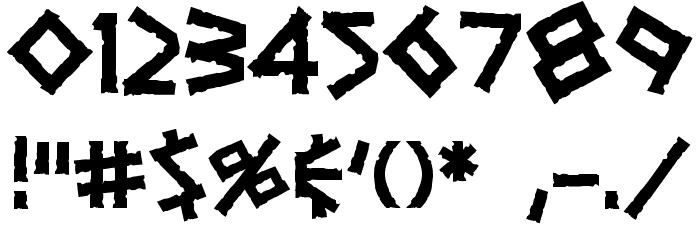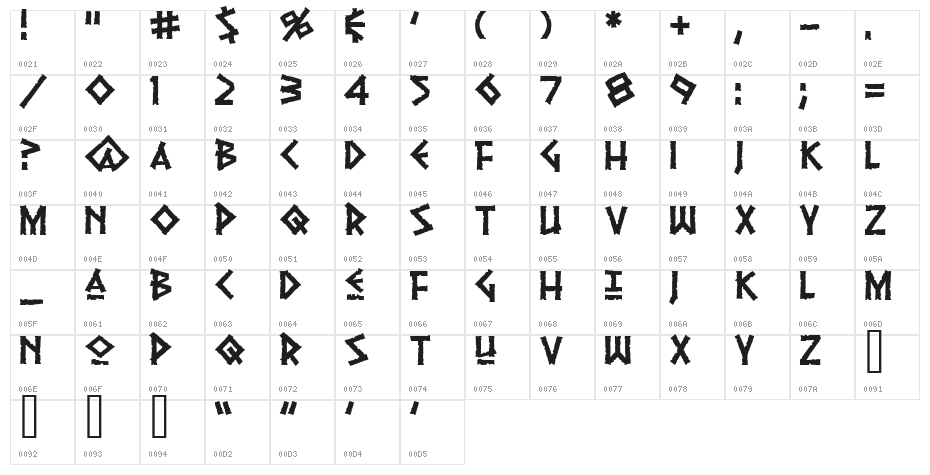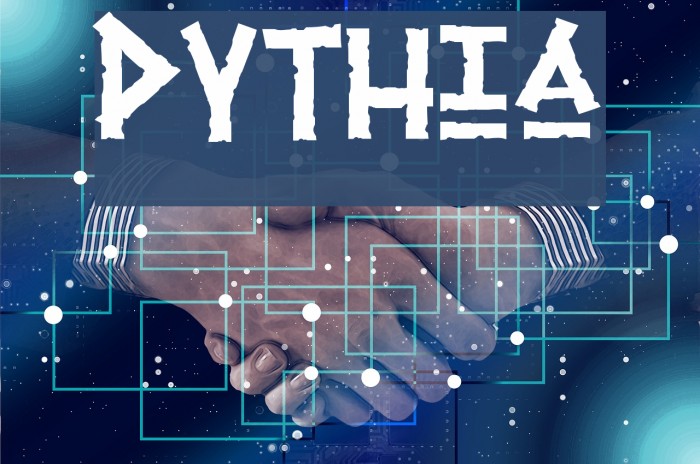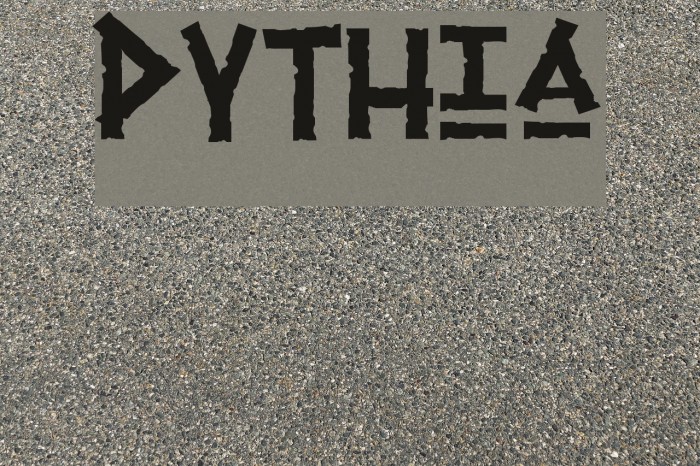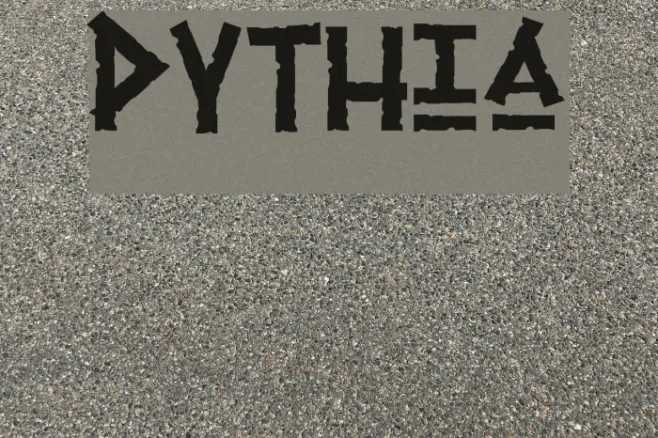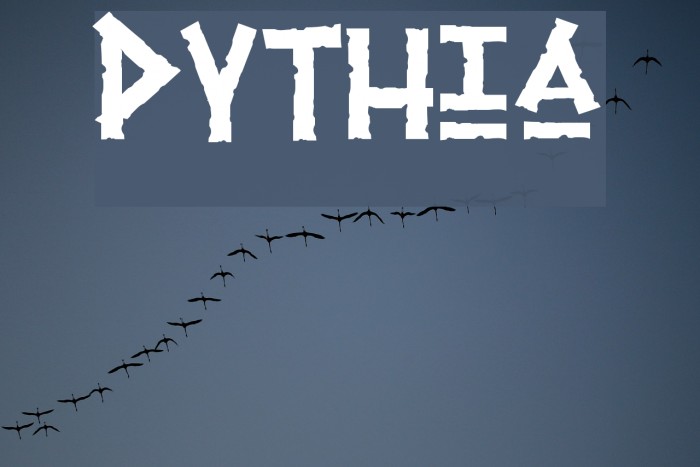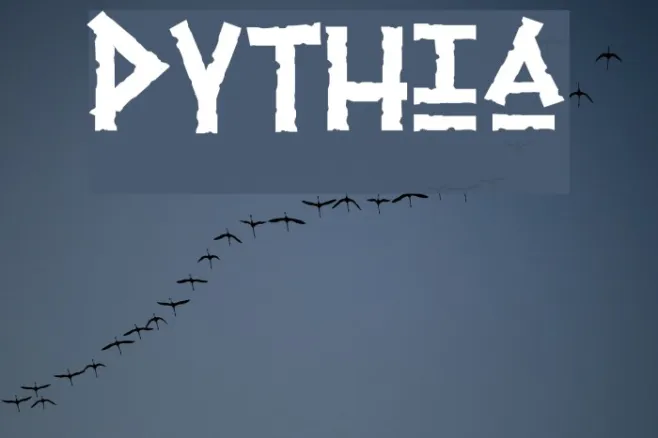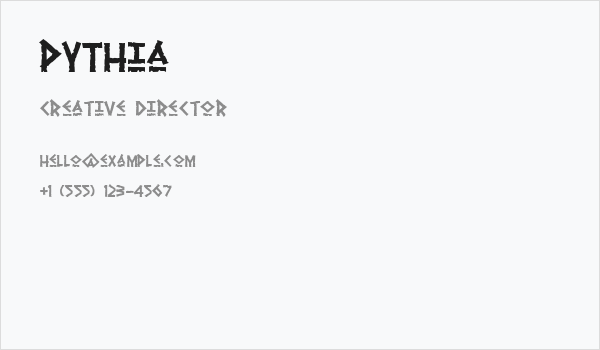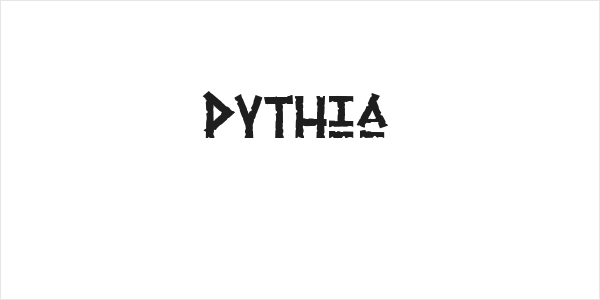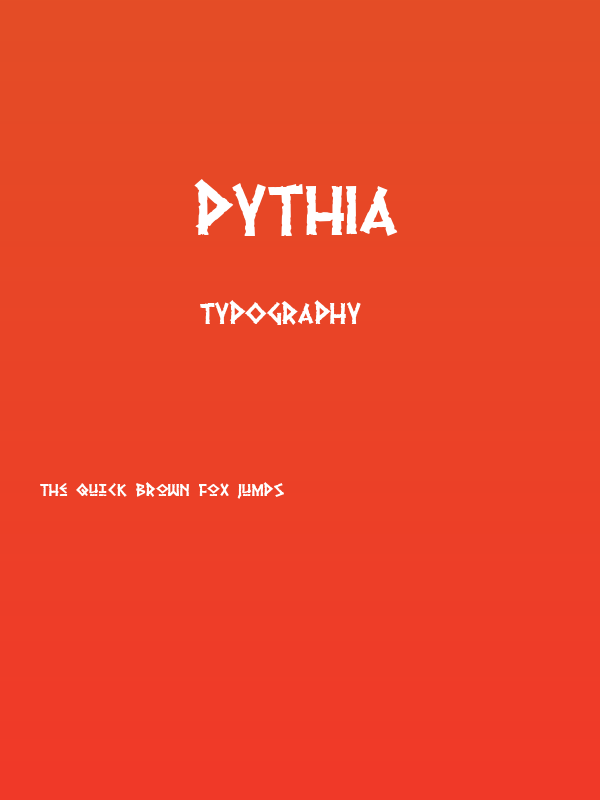
Pythia Font
Pythia Description
This font exhibits a bold and edgy style, characterized by sharp angles and a rough, hand-crafted appearance. The uppercase letters are distinct with jagged edges, giving an impression of being carved or chiseled. The lowercase letters maintain this rugged aesthetic, ensuring consistency throughout the typeface. Numbers and special characters follow the same design principles, making them visually cohesive with the alphabet. The overall look is reminiscent of ancient or mystical scripts, adding a sense of mystery and intrigue. This font is highly decorative, making it suitable for projects that require a strong visual impact.
| Proposed Projects | Ideal for fantasy-themed designs, book covers, movie posters, and branding that requires a mystical or ancient feel. |